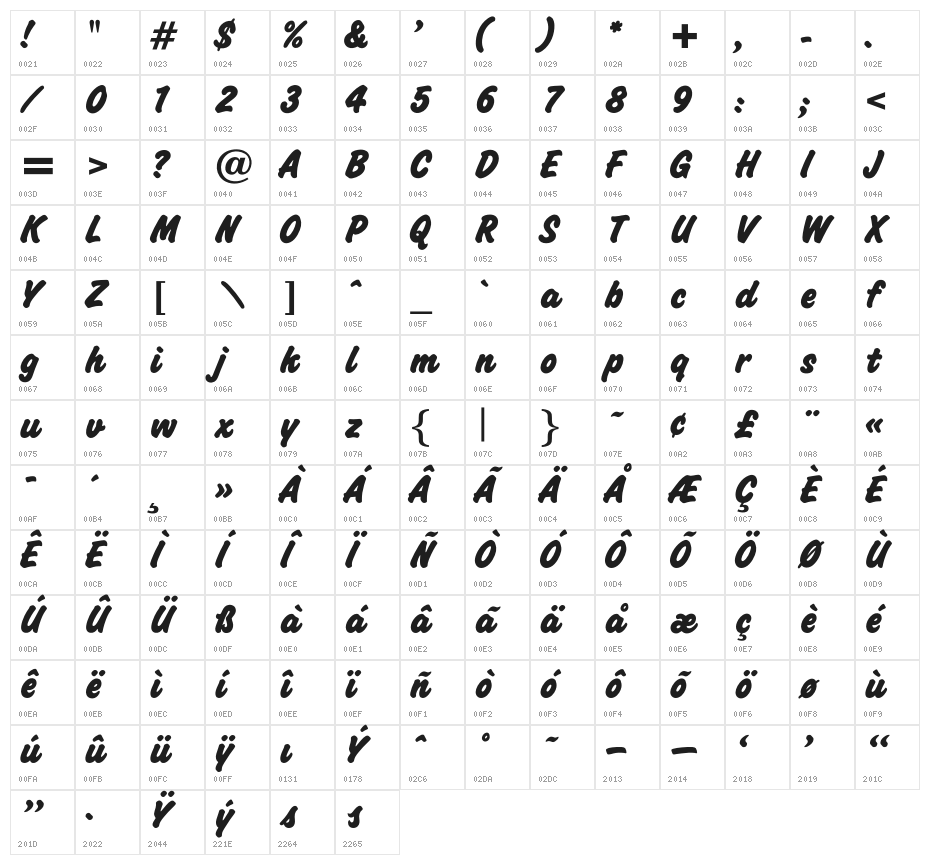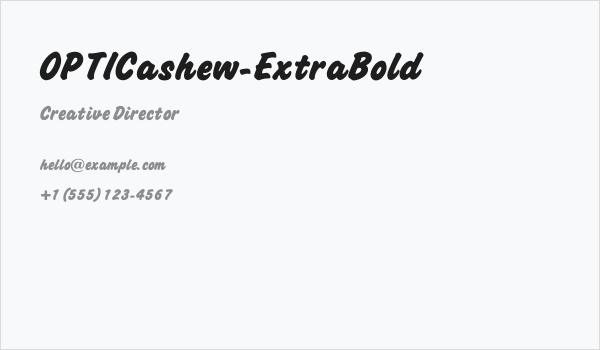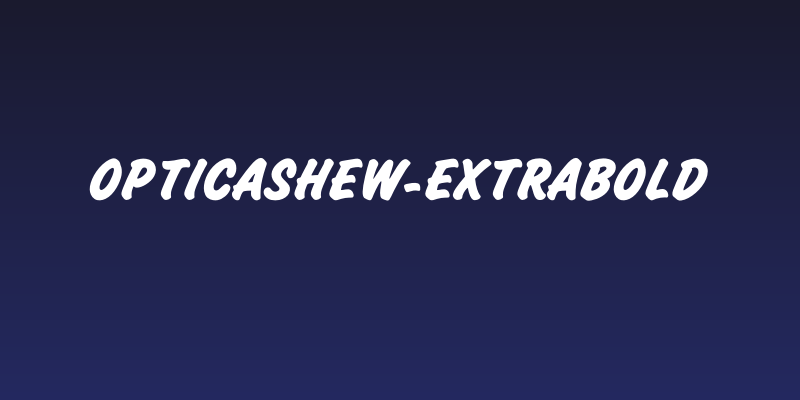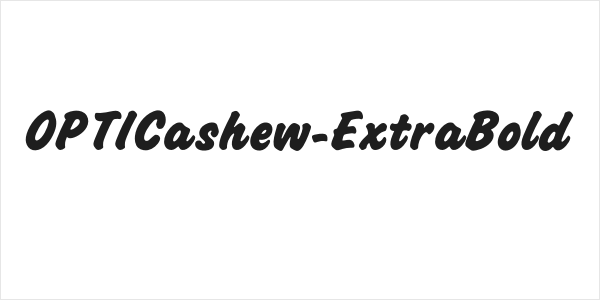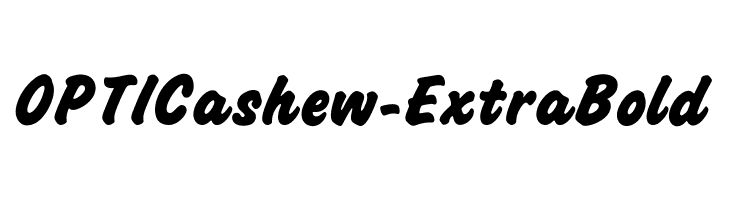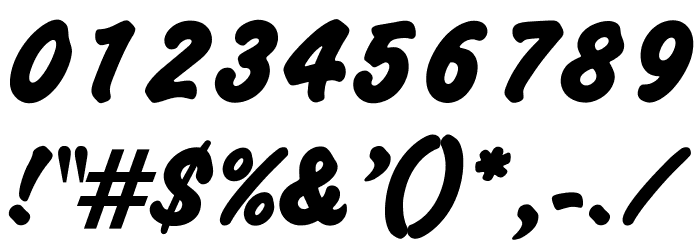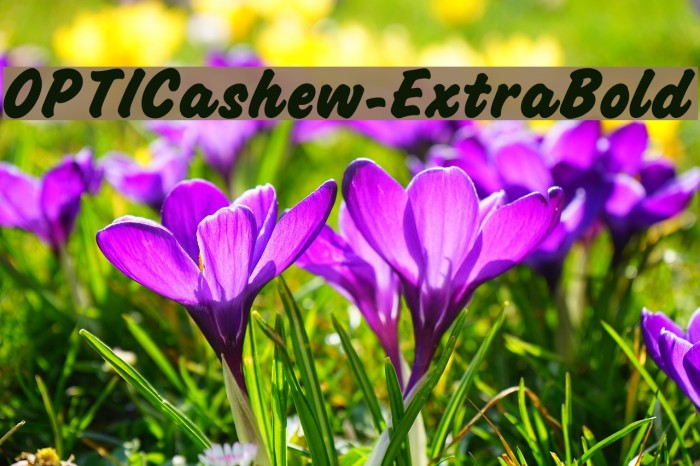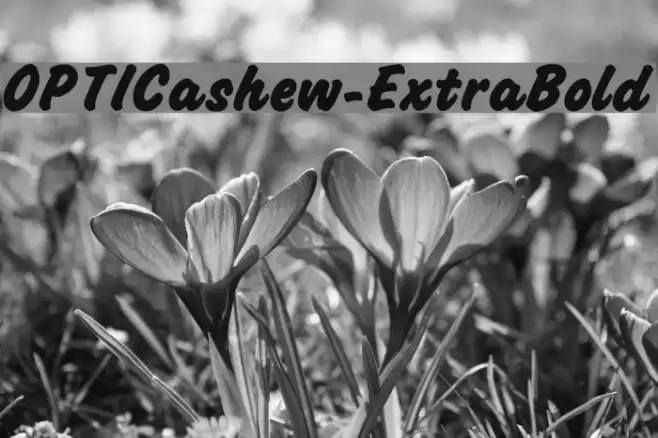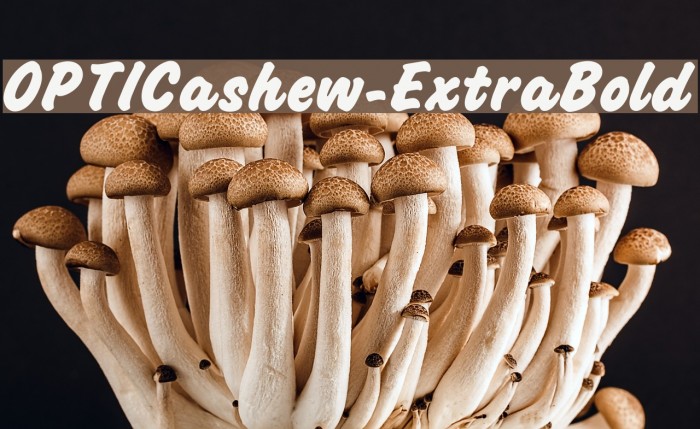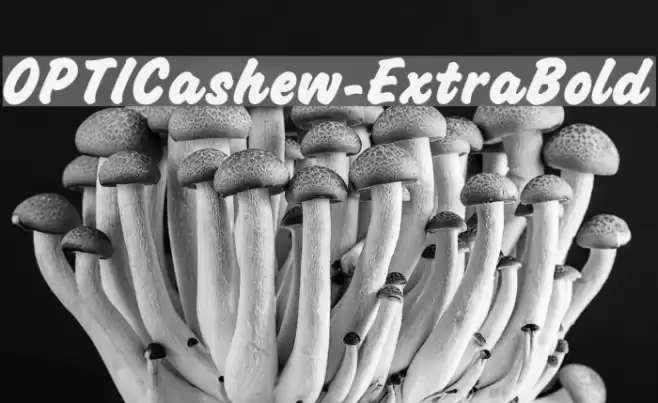
OPTICashew-ExtraBold Font
OPTICashew-ExtraBold Description
This font features a bold and expressive style with thick, rounded strokes that give it a playful and dynamic appearance. The characters are slightly slanted, adding a sense of movement and energy. The uppercase and lowercase letters maintain a consistent weight, ensuring readability while providing a strong visual impact. The numerals and special characters are designed to match the overall boldness, making them stand out effectively. This font's design is suitable for projects that require a lively and engaging typeface.
| Overall Style | Playful and dynamic |
| Proposed Projects | Ideal for branding, advertising, posters, and any project that requires a bold and energetic typeface. |